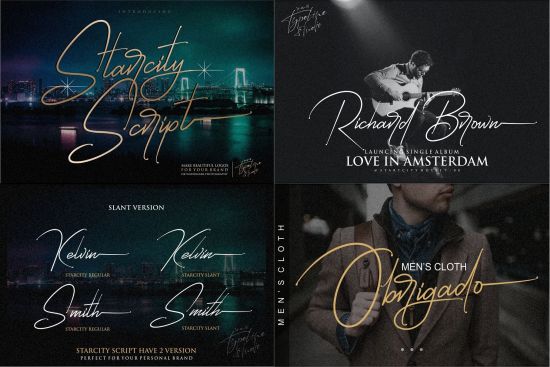
DesignOptimal - Starcity Font
DesignOptimal.com - Starcity Font
I introduced our newest product font Starcity Script which is perfect for creating logos and watermarks for brands and photography. I made it with a sense of luxury, unique and of course also elegant